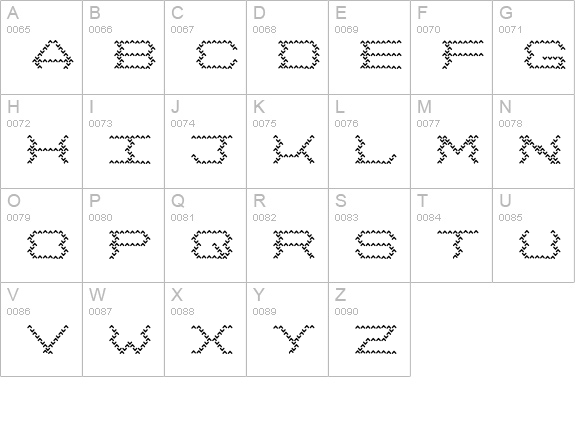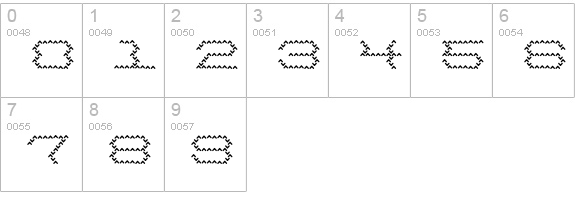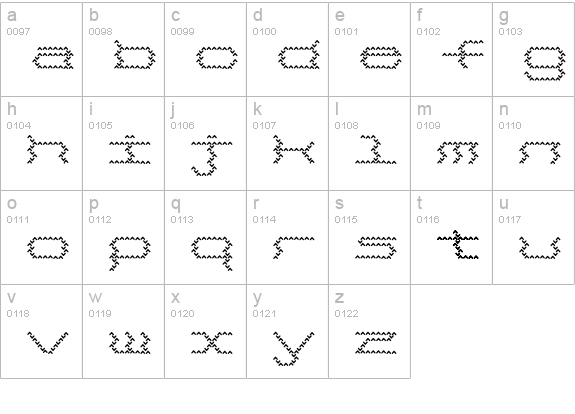
3 Megabytes Font Details
Introducing the captivating 3 Megabytes font - a versatile and modern typeface that is sure to make a bold statement in any design project. With its sleek lines and unique characters, this font is perfect for adding a touch of sophistication to your creations. What's even better is that the 3 Megabytes font is available for free download at FontsMarket.com! Whether you're working on a branding project, website design, or any other creative endeavor, this font is sure to elevate your work to the next level. Don't miss out on this opportunity to enhance your designs with the stylish and eye-catching 3 Megabytes font - download it for free today!